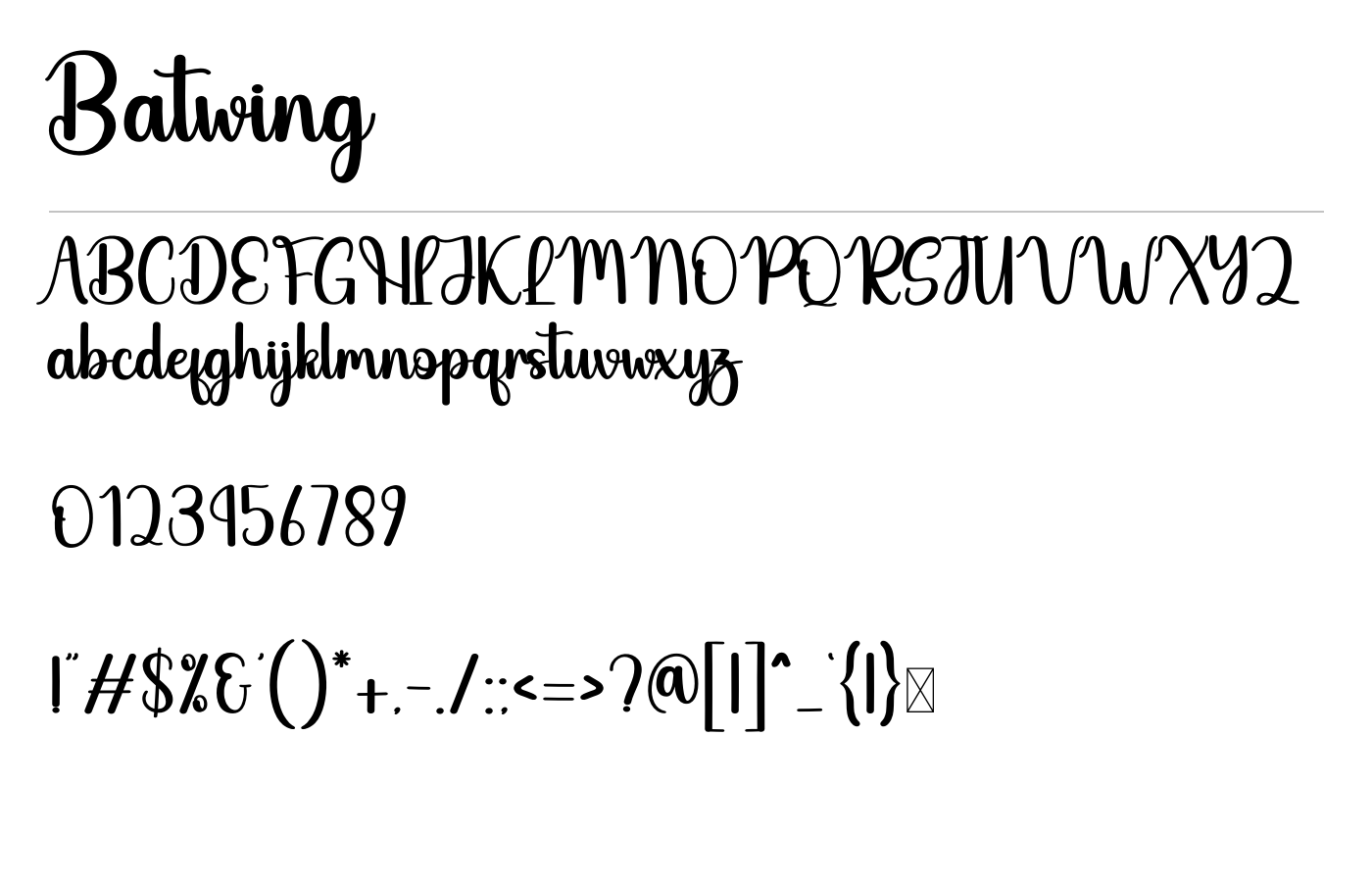
Batwing is a playful and elegant script-inspired font with a handwritten feel, characterized by its fluid strokes and rounded forms. Its light weight and moderate contrast give it a friendly yet stylish personality, making it ideal for branding, invitations, and casual editorial projects where a personal touch is desired. This font works well in headlines and logos that need a whimsical, approachable vibe without sacrificing readability.
Batwing Font
About Batwing Font